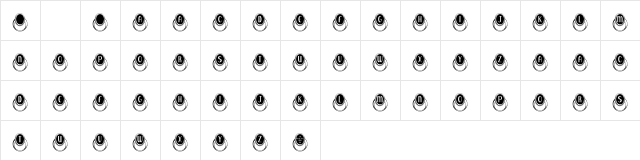
KR Mood Ring Regular Font Preview
KR Mood Ring Regular
KR Mood Ring Regular Font Details
Design Context for KR Mood Ring Typeface
KR Mood Ring is a composed and adaptable typeface that performs quietly and consistently across a wide range of design contexts.